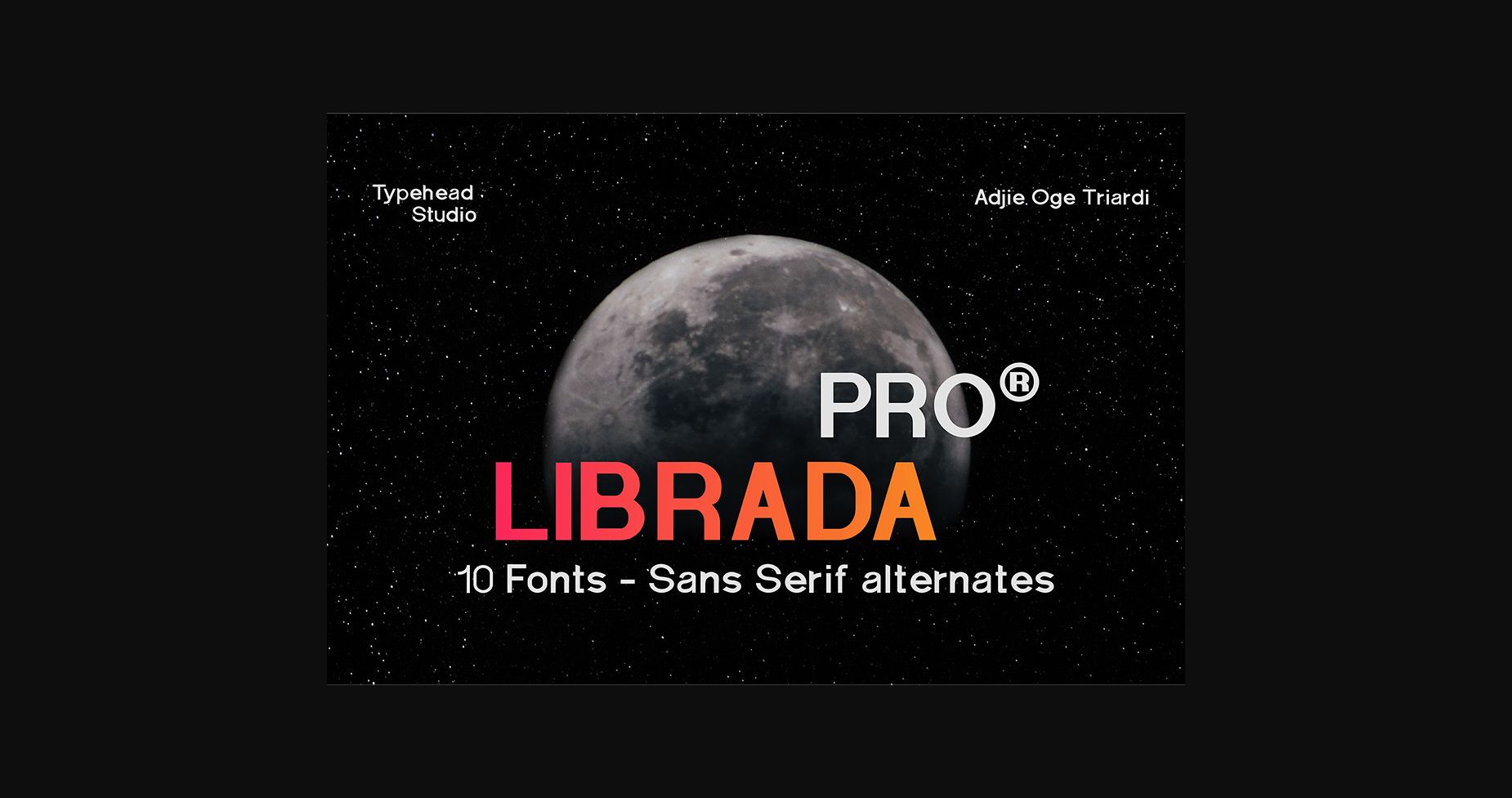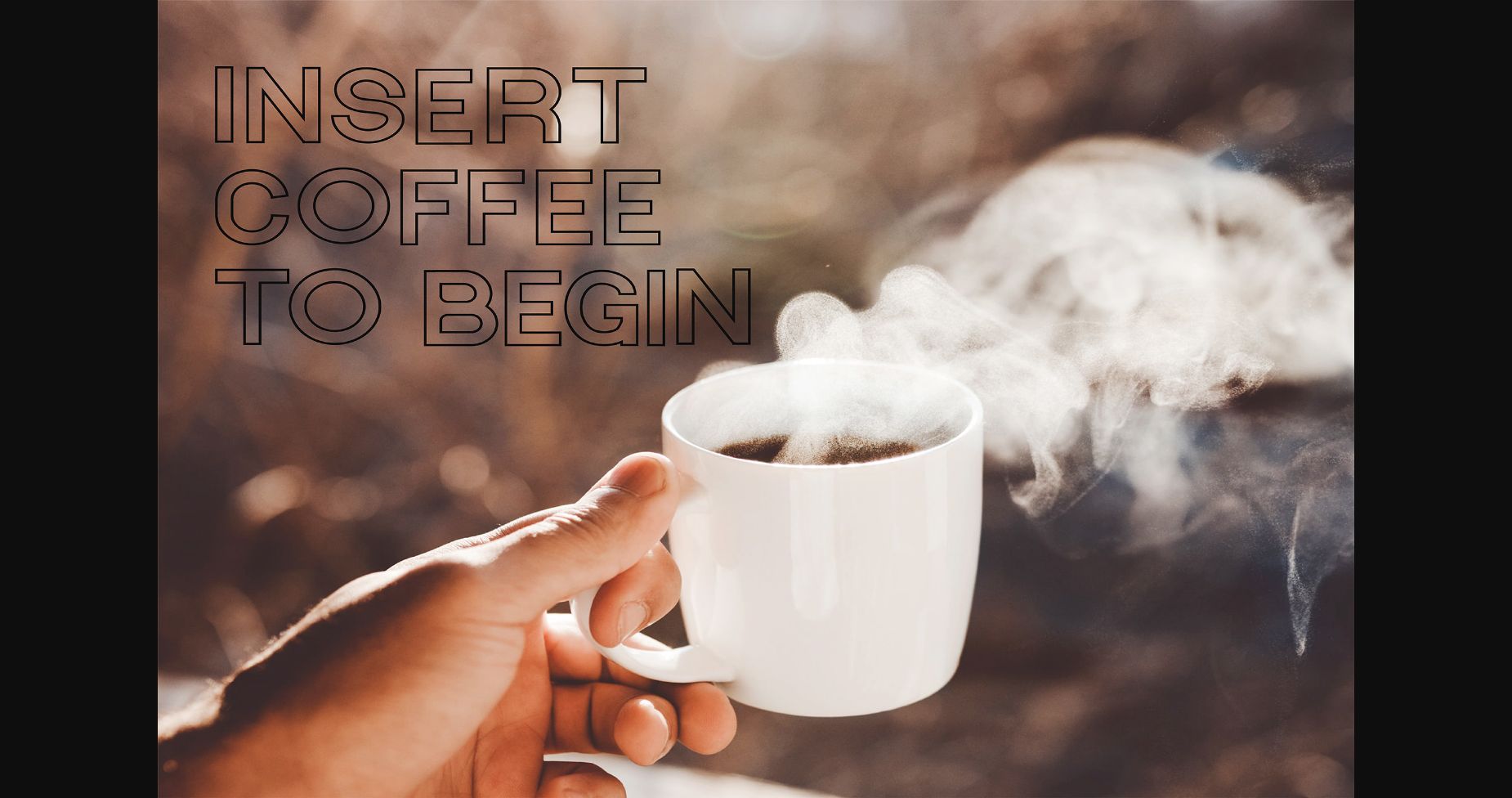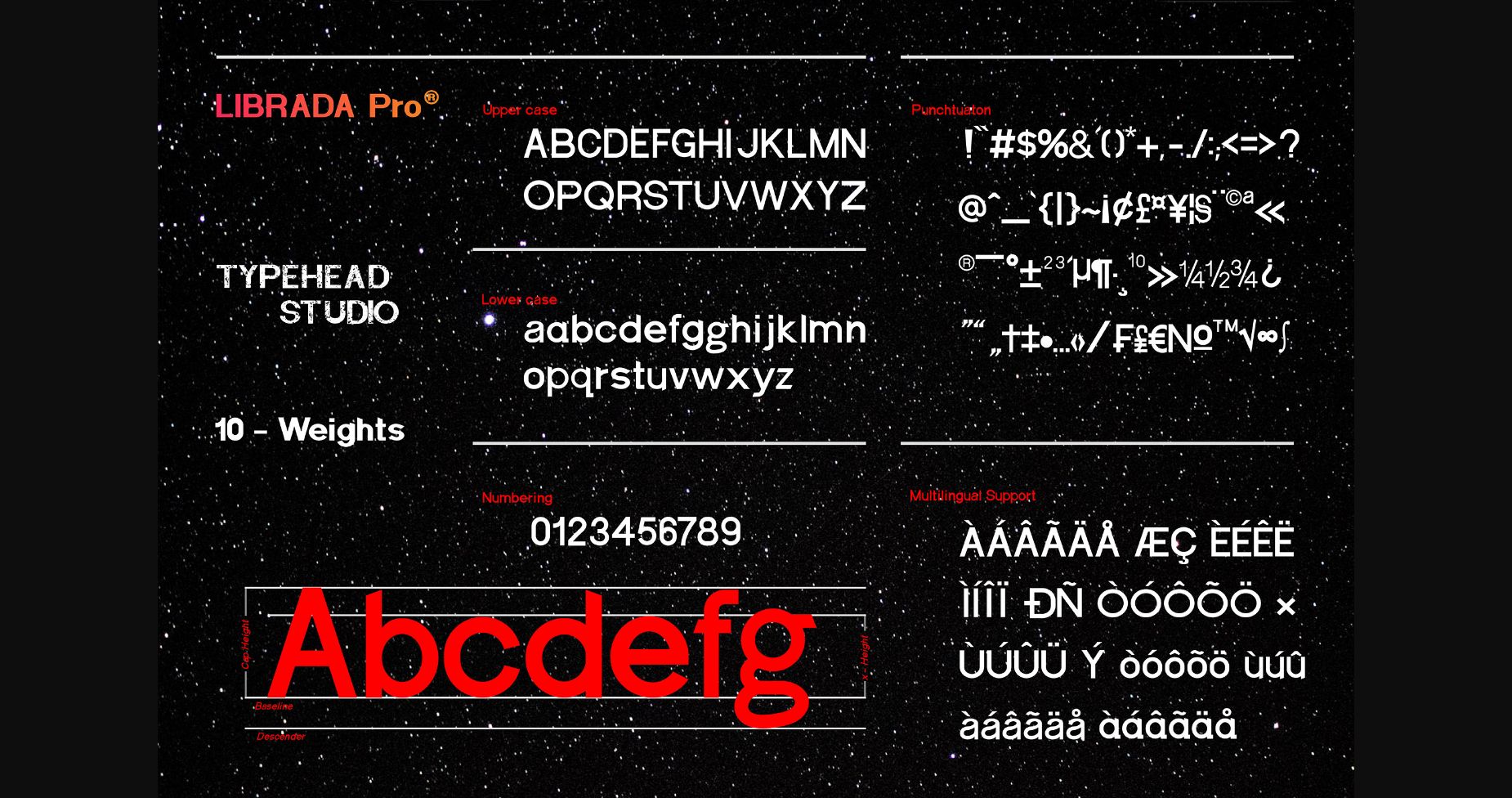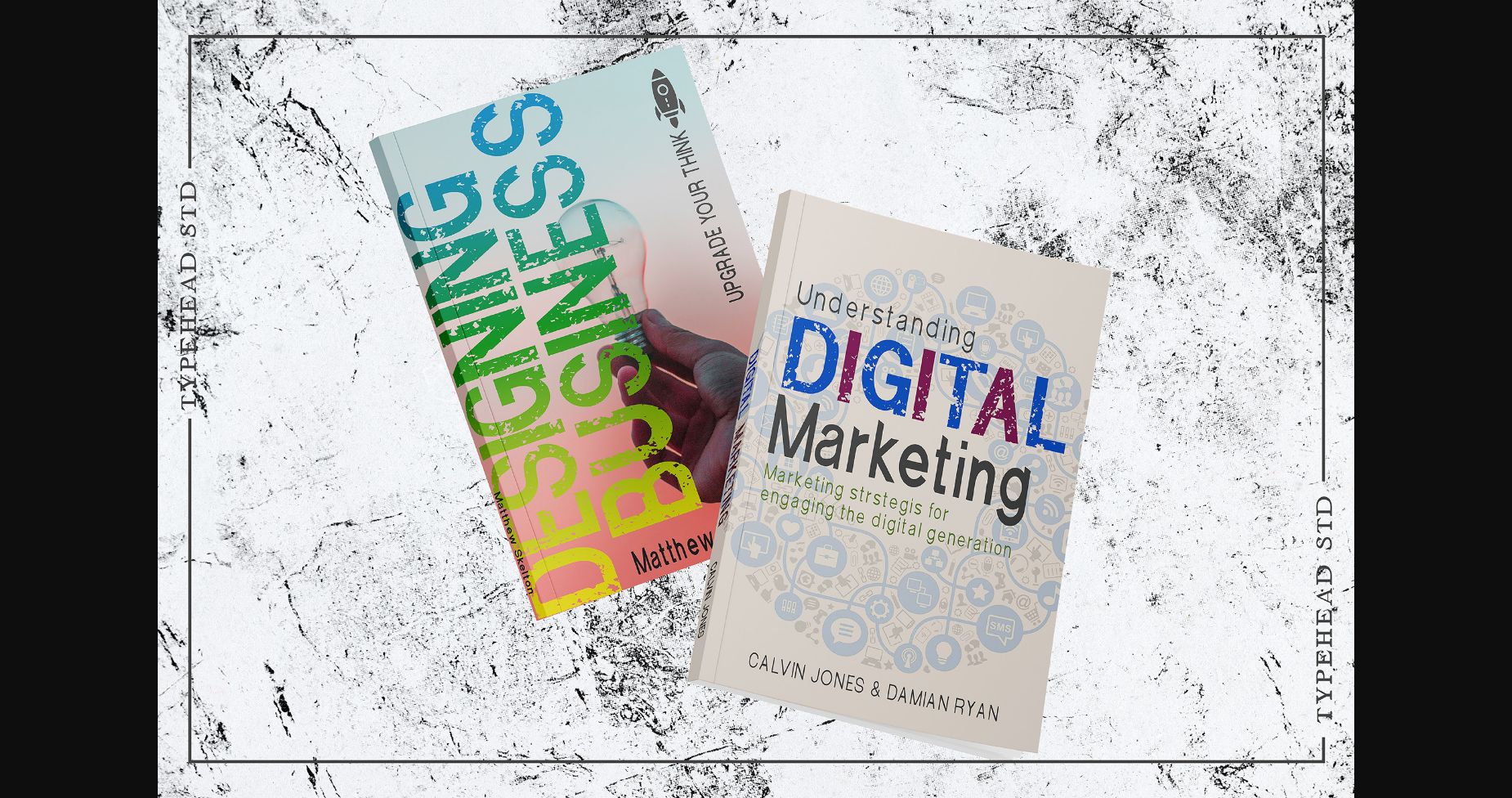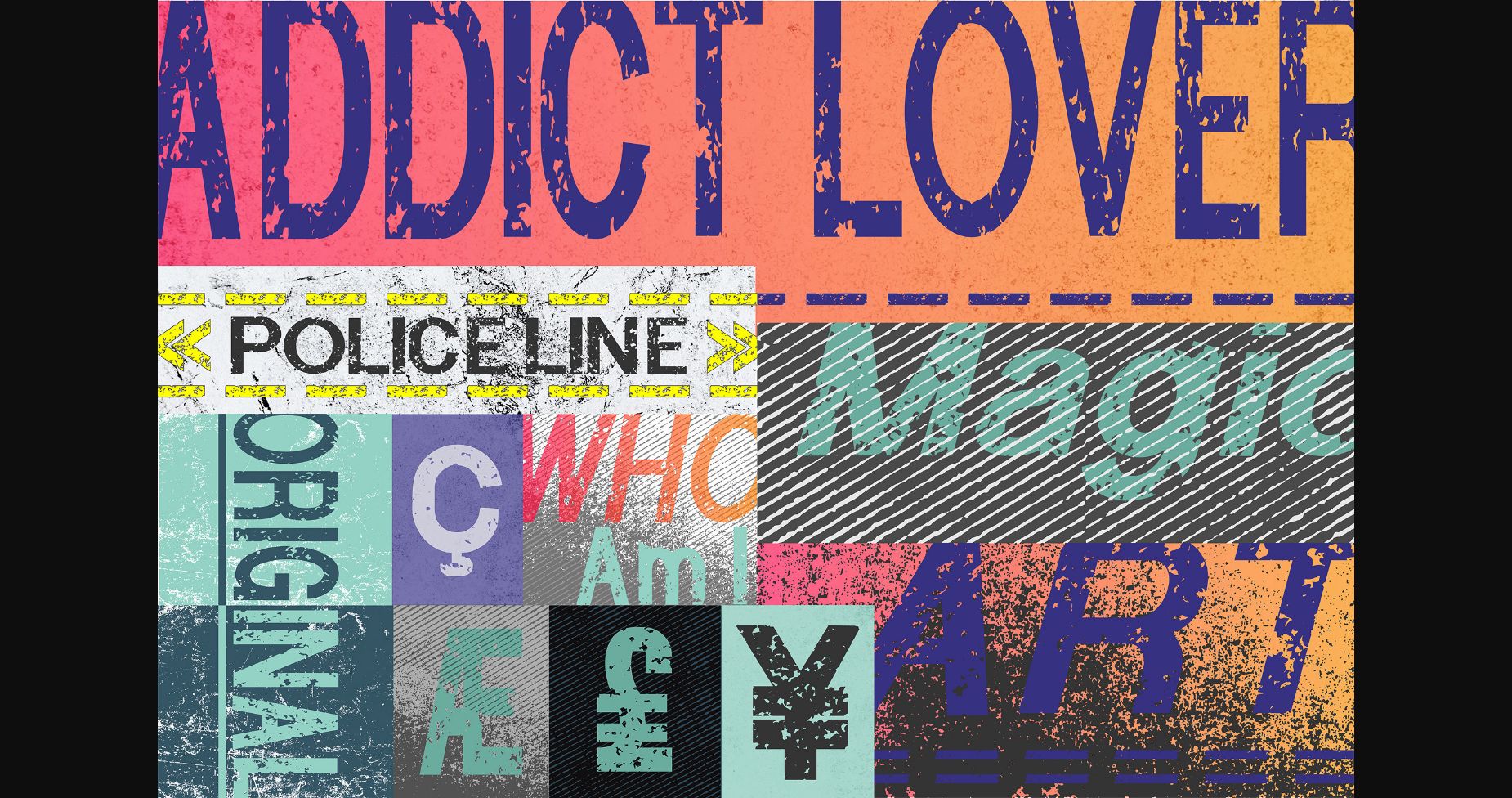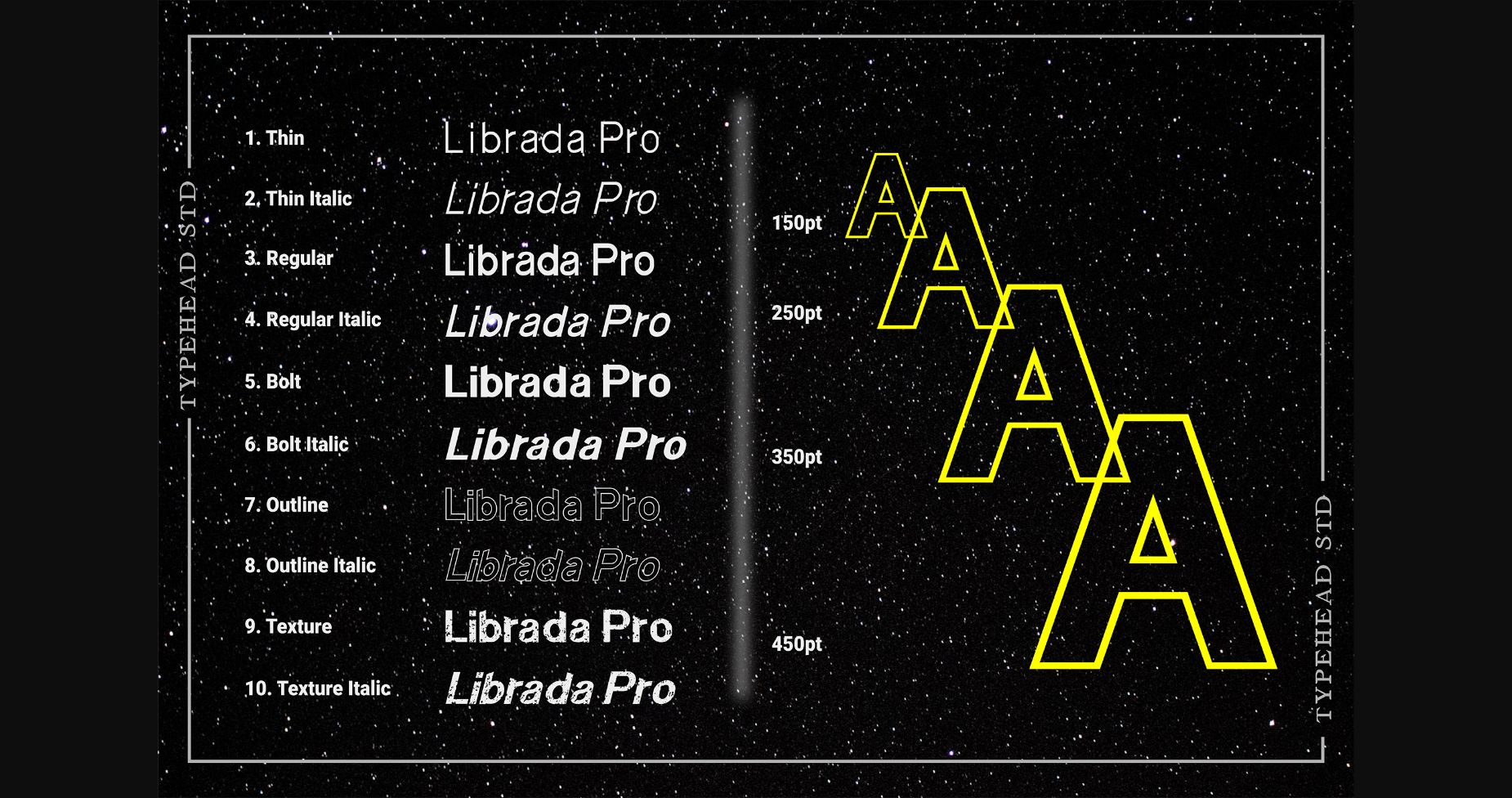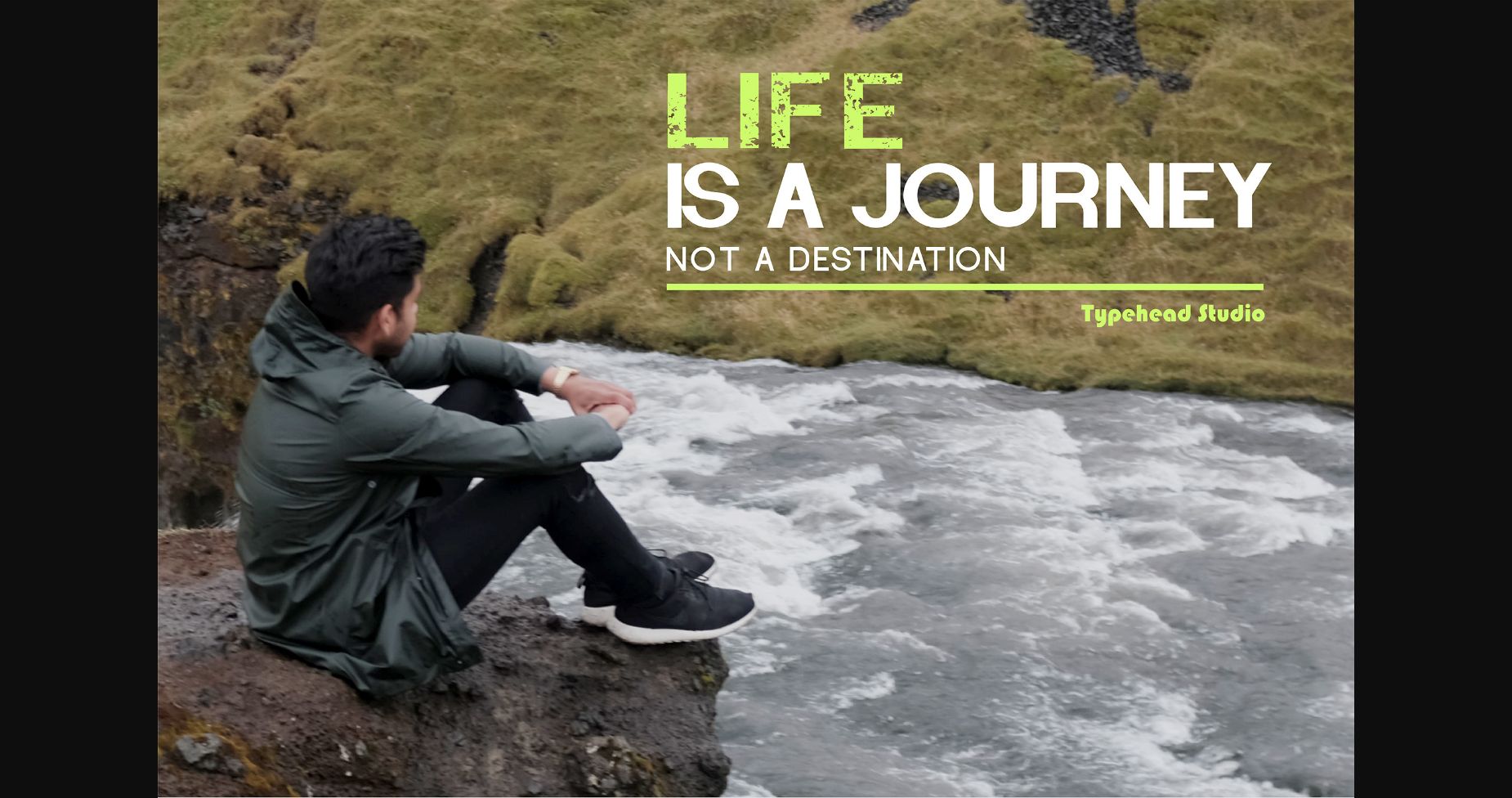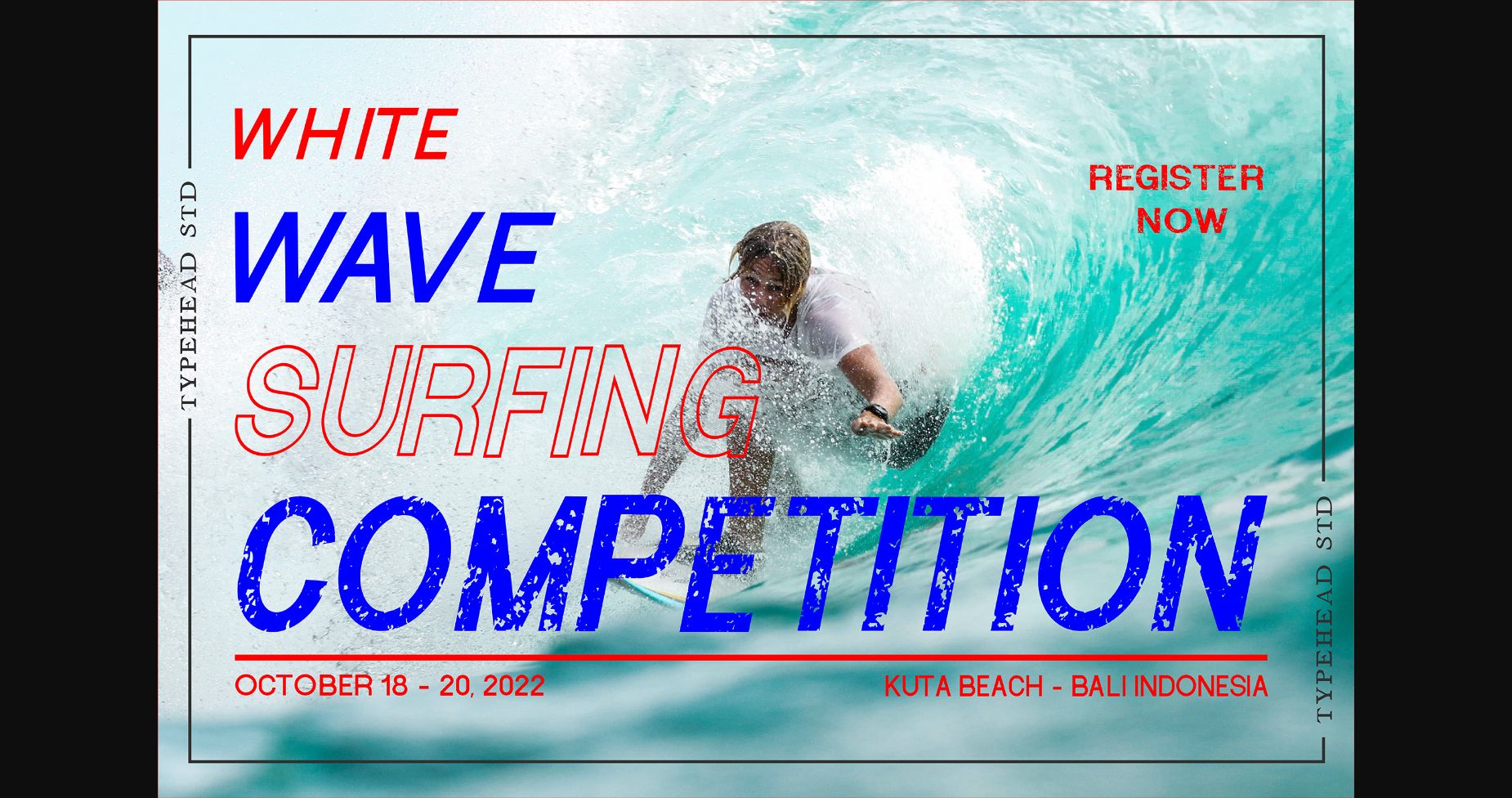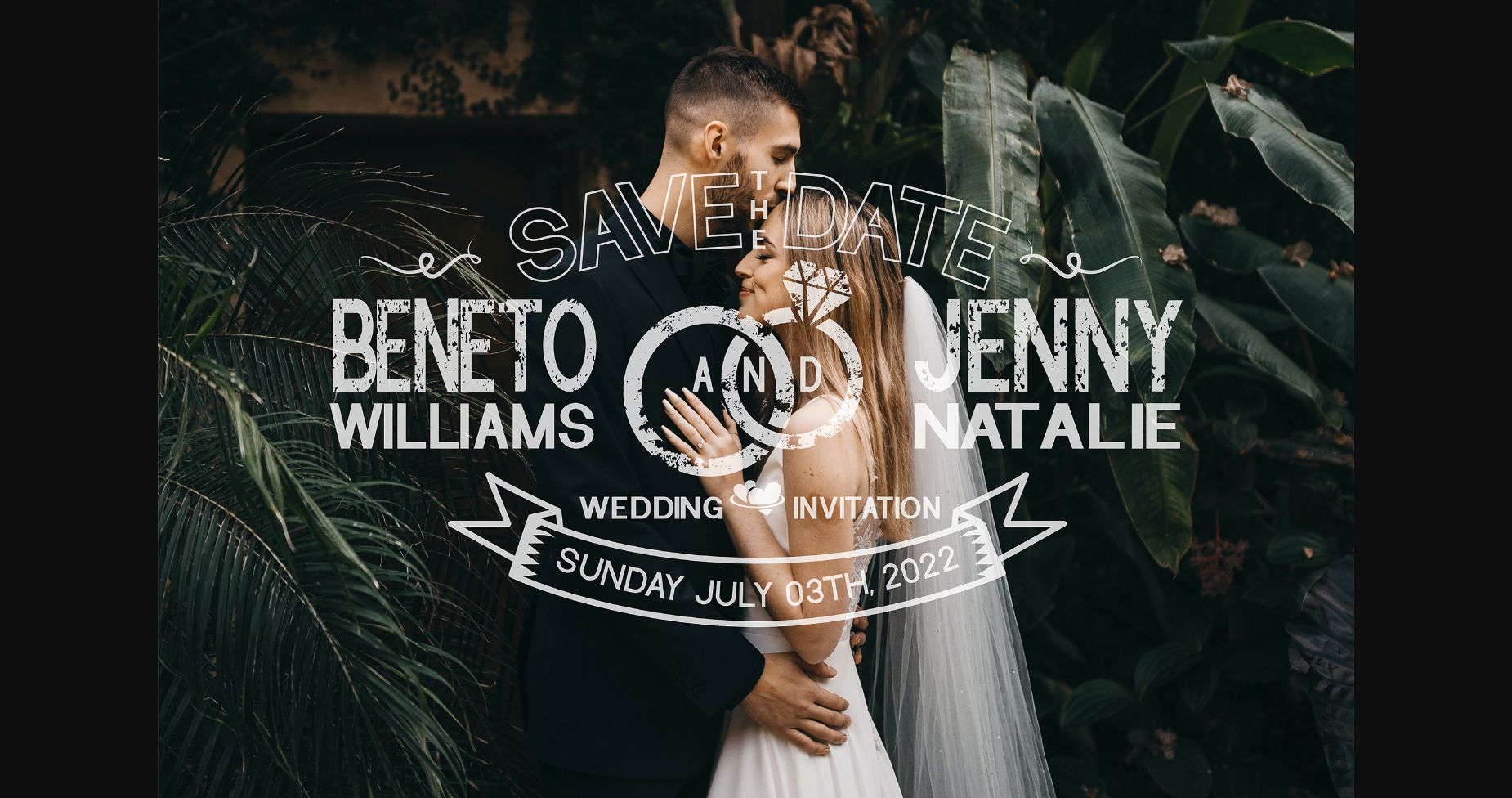
Librada Pro Font
About Librada Pro Font
Librada Pro is a cool, clean and adaptable sans serif font. No matter the topic, this font will be an incredible asset to your fonts’ library, as it has the potential to elevate any creation.